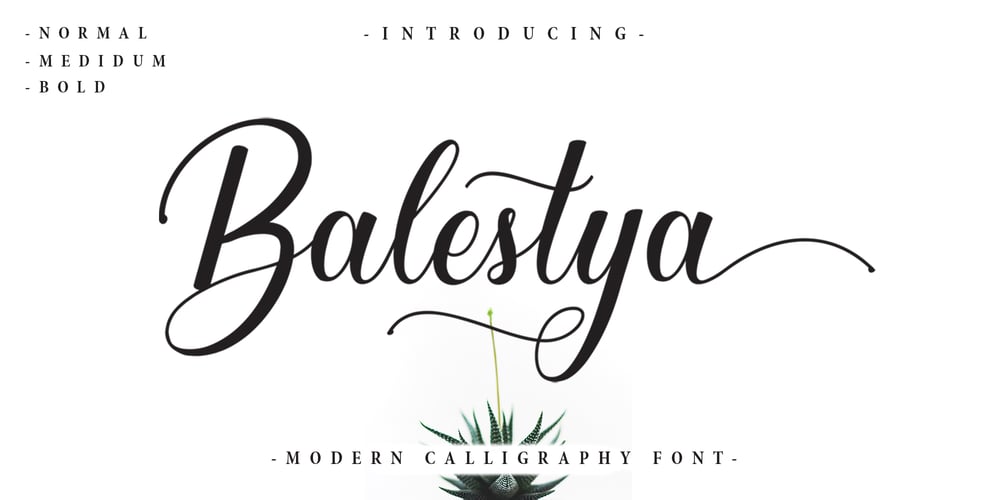
Balestya Script Font Family was designed by Faisal Tanjung and published by sizimon. Balestya Script contains 3 styles and family package options. Balestya Script is a modern calligraphy font. Balestya a beautiful for logotype, website header, fashion design,wedding card design and any more. Balestya comes with elegant style, It also comes as a Balestya Normal, Balestya Medium, and Balestya Bold. It contains a full set of lower & uppercase letters, a large range of punctuation, numerals, and multilingual support.Whats Include : Balestya Normal, Medium, Bold PUA Encoded Multilingual support : (Danish,Finnish,English,,Spanish,Dutch,German,Icelandic,Italian,Norwegian,Portuguese,Indonesian, Swedish) To access the alternate glyphs, you need a program that supports OpenType features such as Adobe Illustrator CS, Adobe Photoshop CC, Adobe Indesign and Corel Draw.If you have any question please do not hesitate to contact me. Thank You!